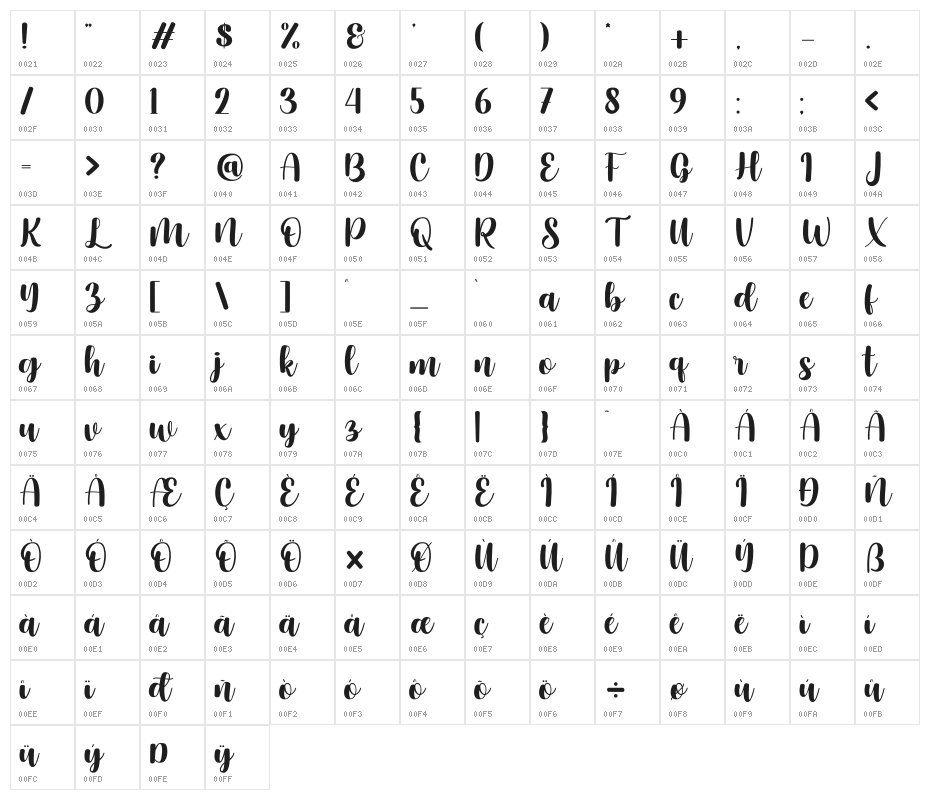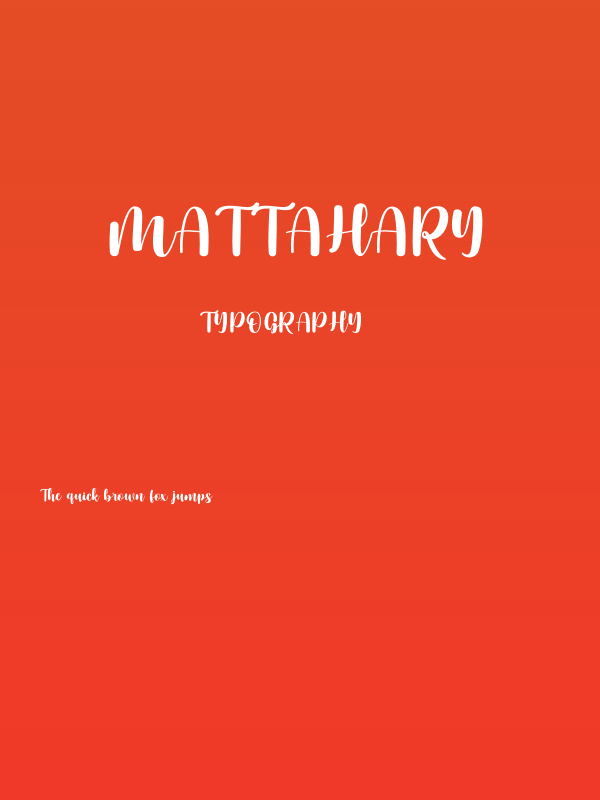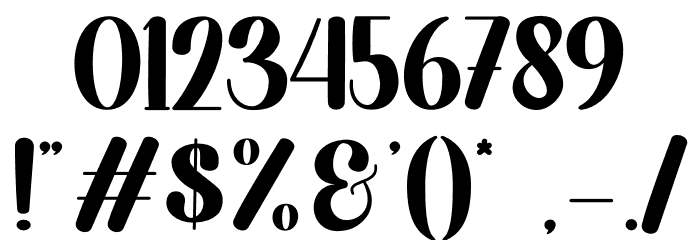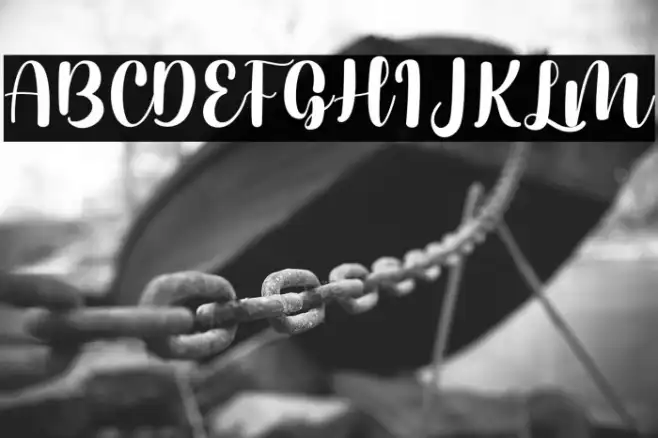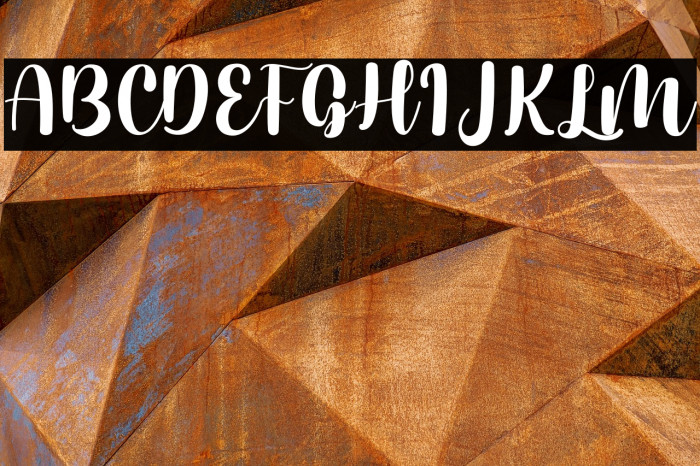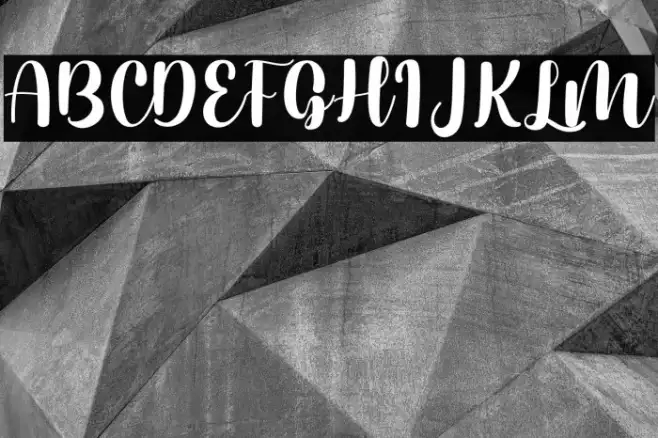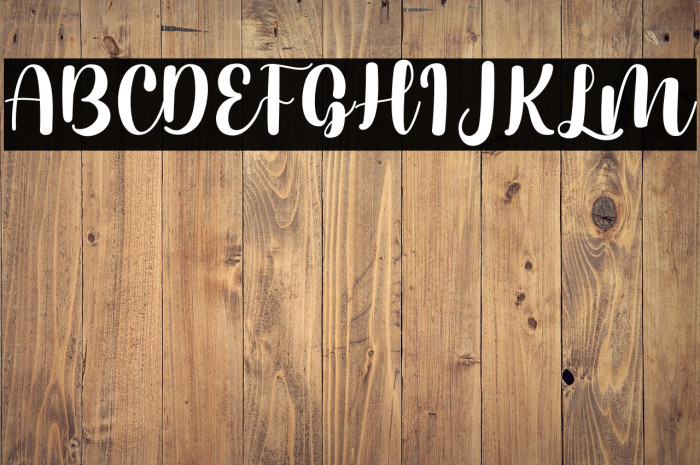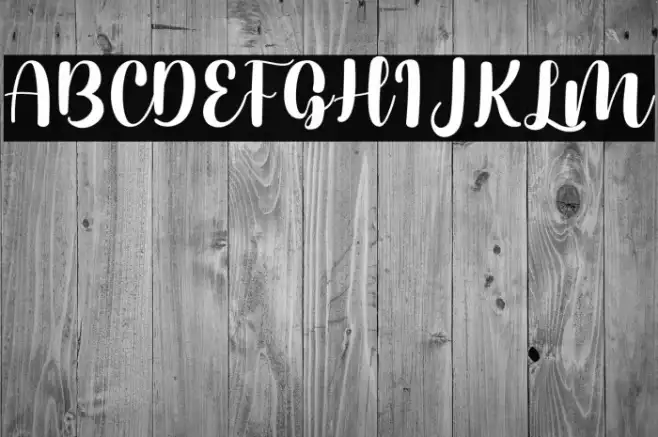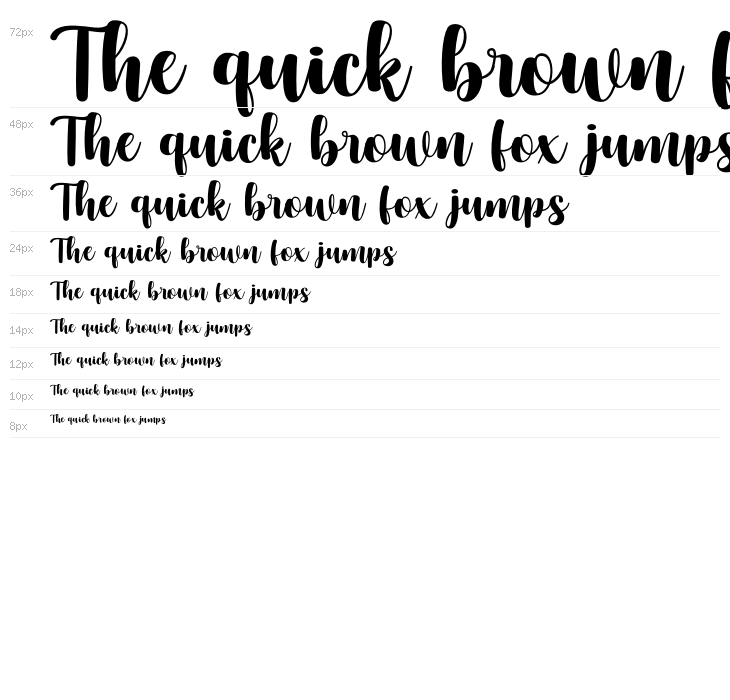
Mattahary Font
Mattahary Description
This font features a bold, flowing script style with a modern flair. The uppercase letters are elegantly curved, with a consistent stroke width that gives a sense of fluidity and movement. The lowercase letters maintain the same flowing style, with some letters featuring distinctive loops and swashes that add a touch of sophistication. The numerals are bold and rounded, complementing the overall aesthetic. Special characters are designed with the same attention to detail, ensuring they blend seamlessly with the rest of the font. This font is perfect for projects that require a touch of elegance and modernity.